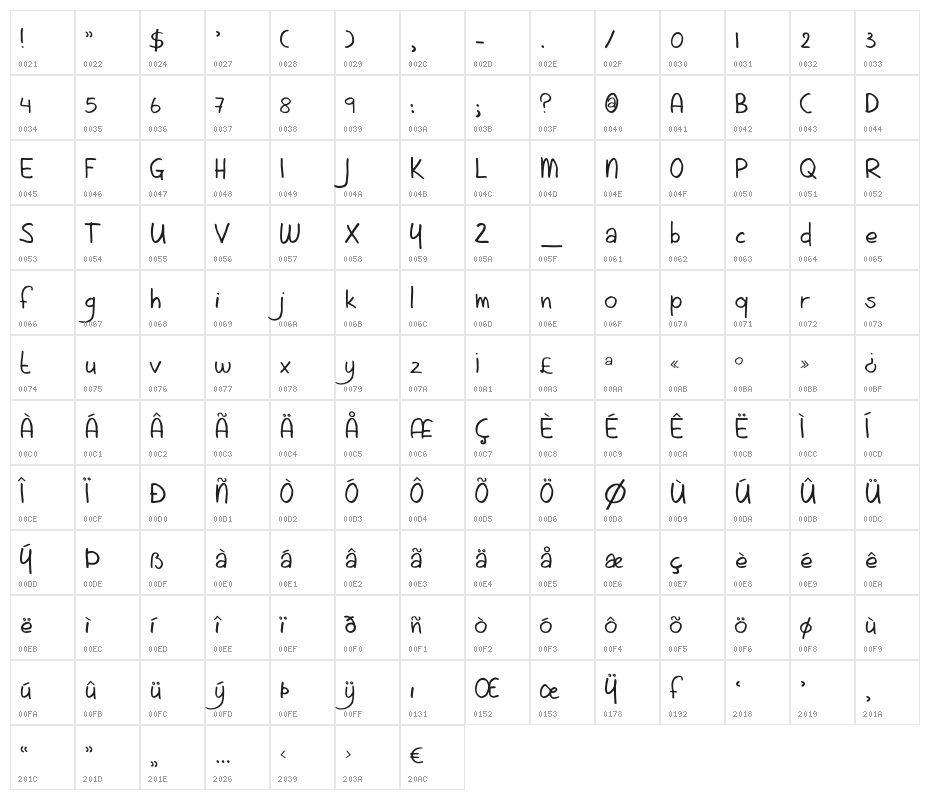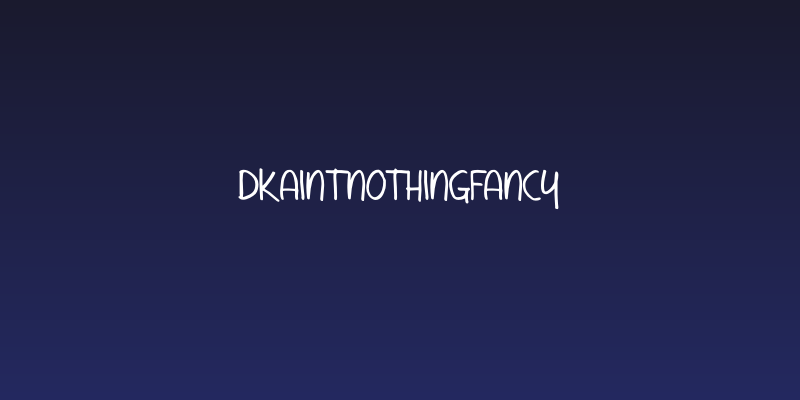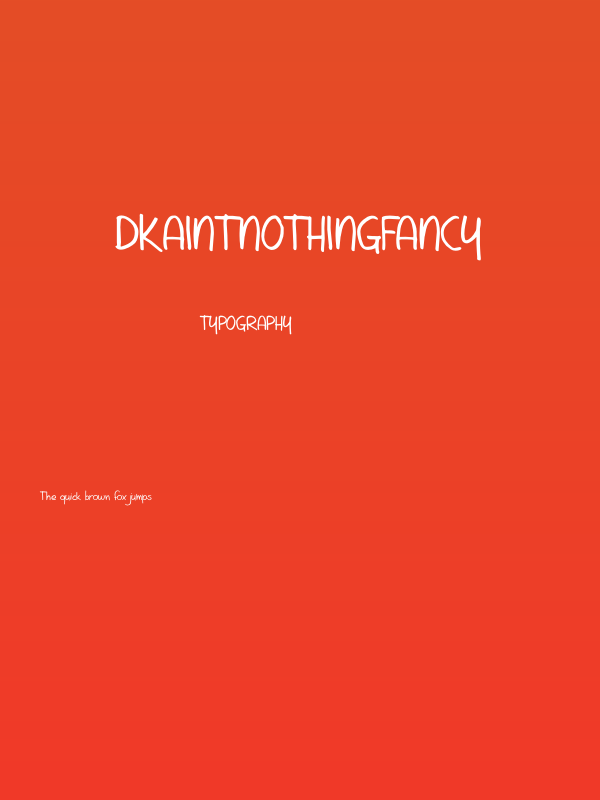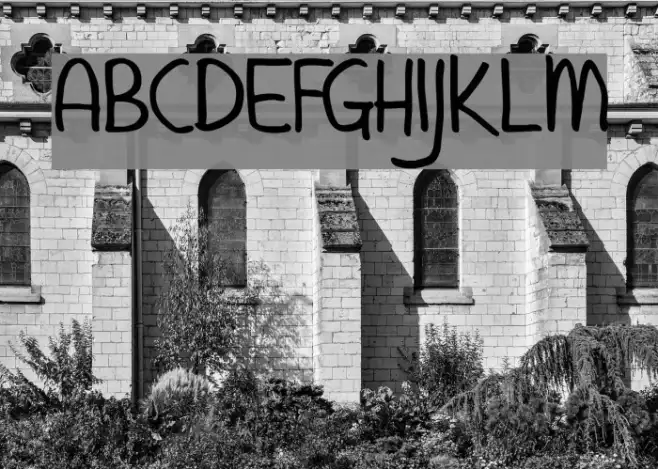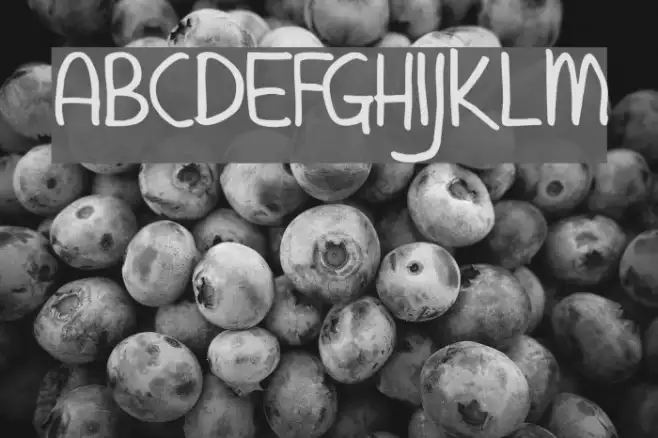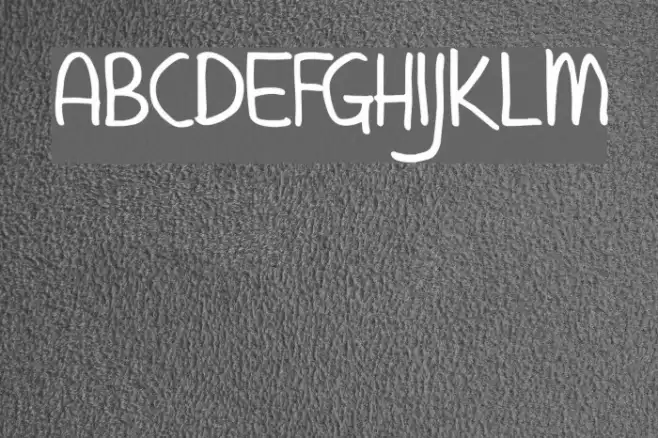
DKAintNothingFancy Font
DKAintNothingFancy Description
This playful and casual font features a handwritten style with smooth, rounded edges and a friendly appearance. The characters are slightly irregular, adding a personal touch that mimics natural handwriting. The uppercase and lowercase letters maintain a consistent style, with a slight slant that gives the font a relaxed and informal feel. The numerals and special characters are designed to match the overall aesthetic, ensuring a cohesive look across all text. This font is ideal for projects that require a personal, approachable, and fun vibe.
| Use Case | Headlines, Informal text, Personal projects |
| Proposed Projects | Greeting cards, children's books, casual invitations, social media graphics, and personal branding. |